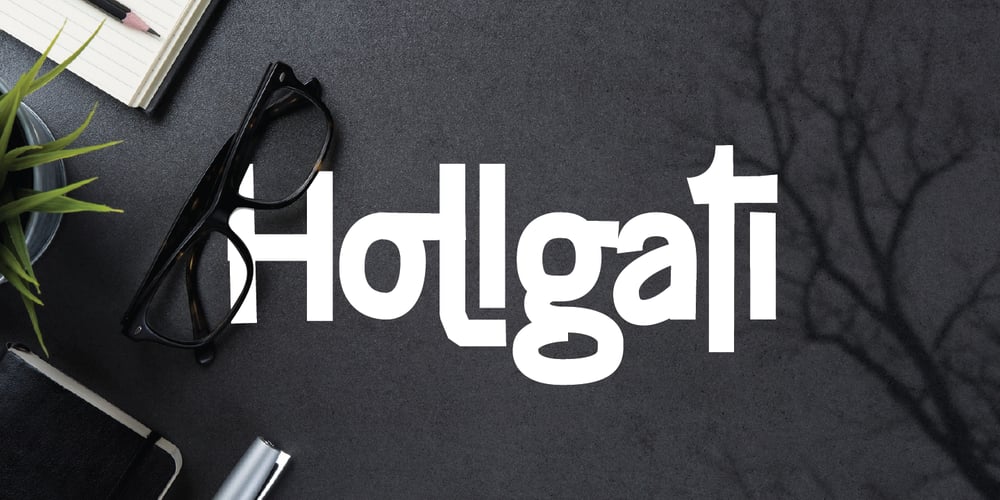
Hollgati Font Family was designed by Jarnawi Saja and published by Grontype. Hollgati contains 2 styles and family package options. Hollgati is a bold sans serif font with moderate and elegance lines, It is based on the combining a variety of styles available in both an elegant regular weight as well as outlined weight.The font is simply work with bold scary touch which is great for halloween titles. Holgati font is Suitable for Logo, greeting cards, quotes, posters, branding, name card, stationary, design title, blog header, art quote, typography. Please contact us if you have any questions. Enjoy the font and thanks for supporting us. Regards, Grontype.